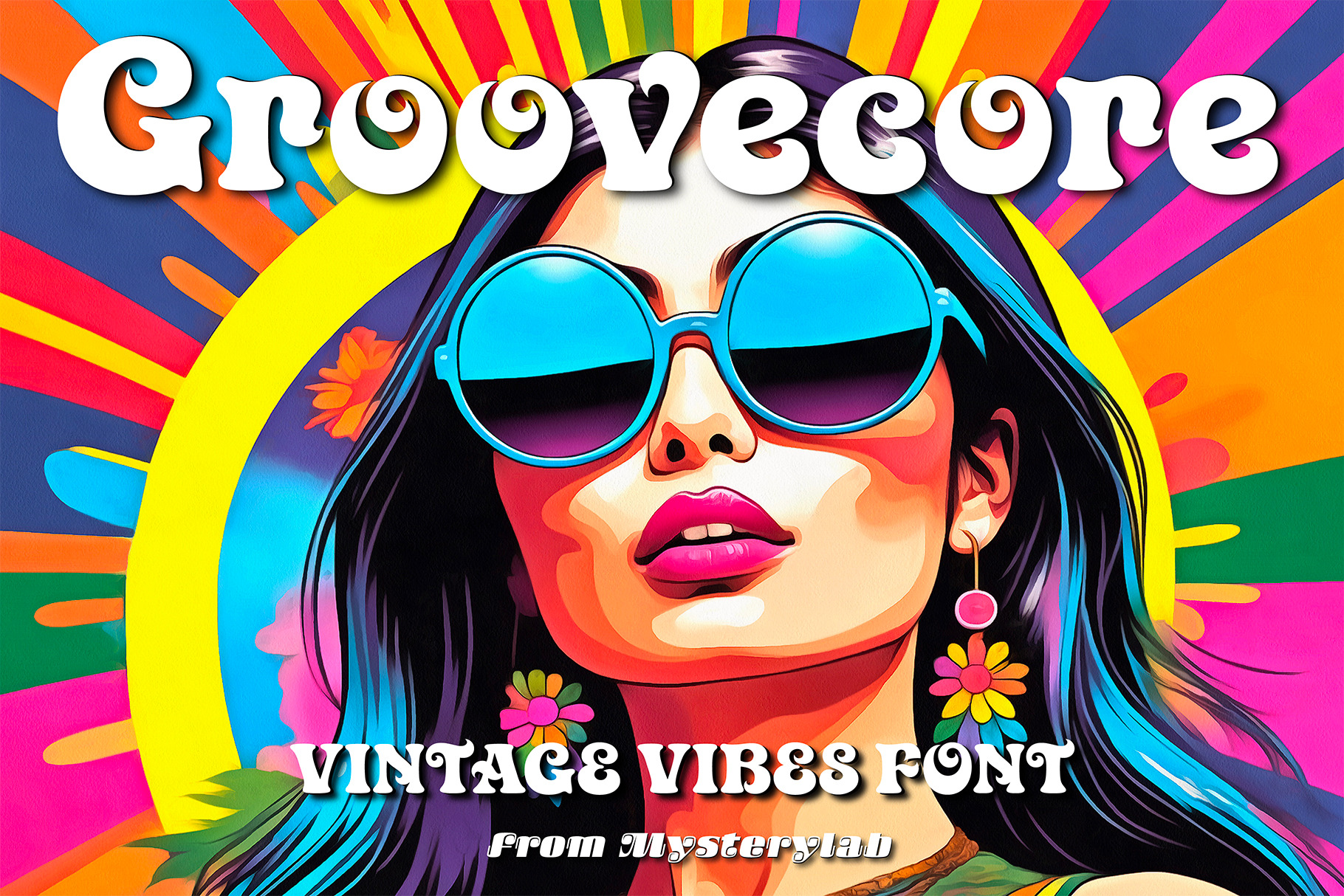
Groovecore Font
Groovecore is a modern bold serif display font with an unmistakable 1970s vibe. This is a design that is equally at home on a retro t-shirt logo as it is on a stylish fashion headline. The combination of plump rounded serifs and pointy curls sets up a nice graphic interplay of shapes. You'll find Groovecore to be carefully and extensively kerned, with even color weight that's makes it shine even in small extended text passages. Quirky but legible, Groovecore is a great choice in many contexts.